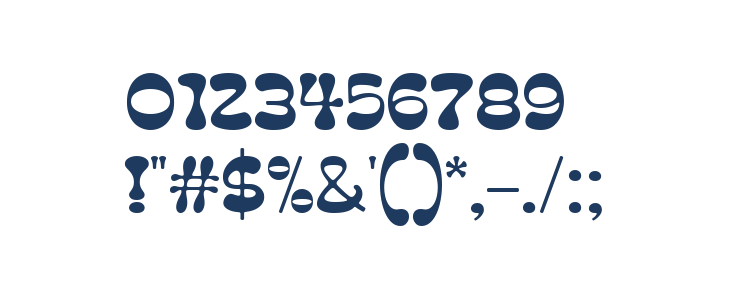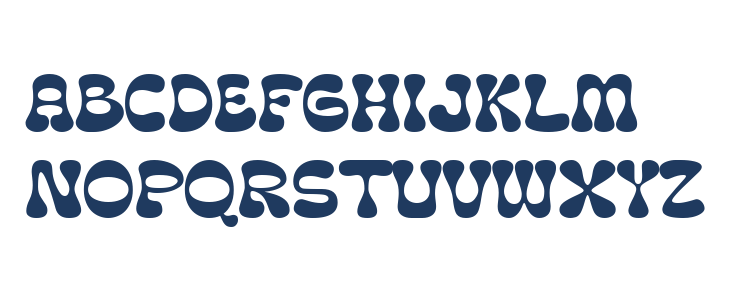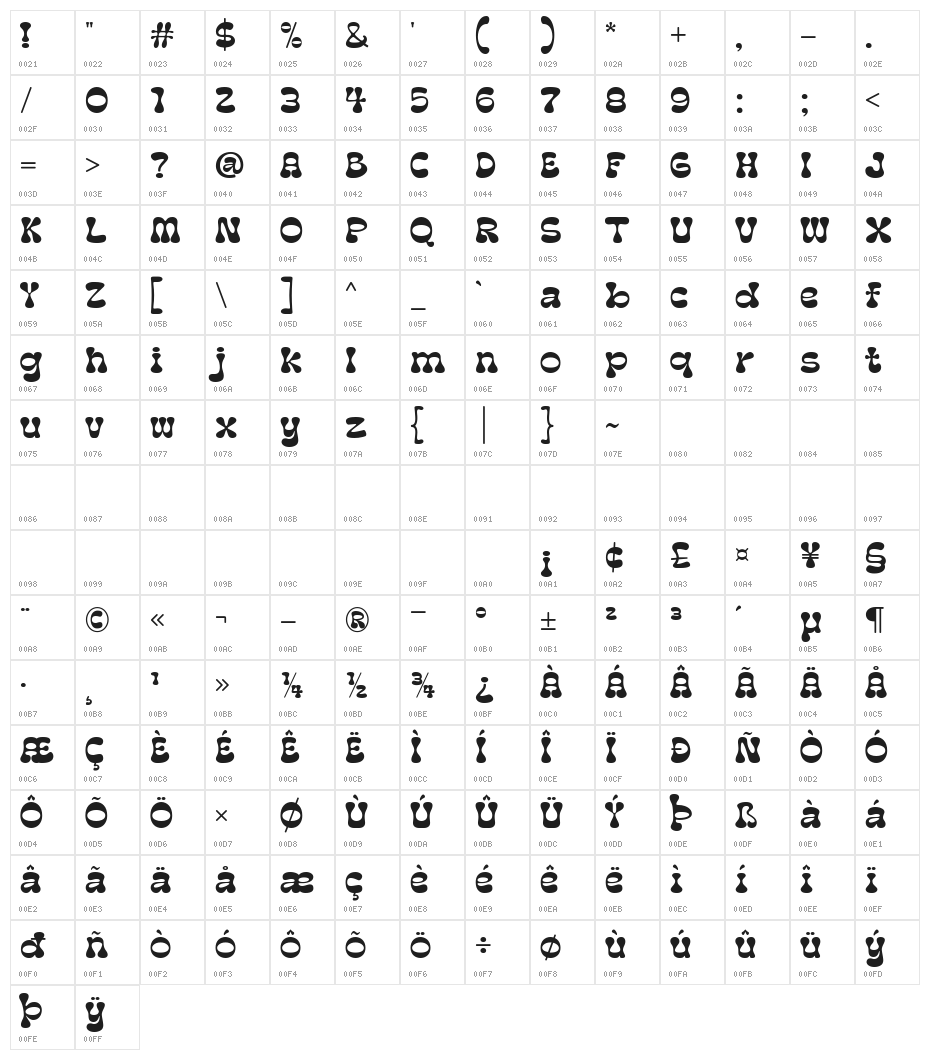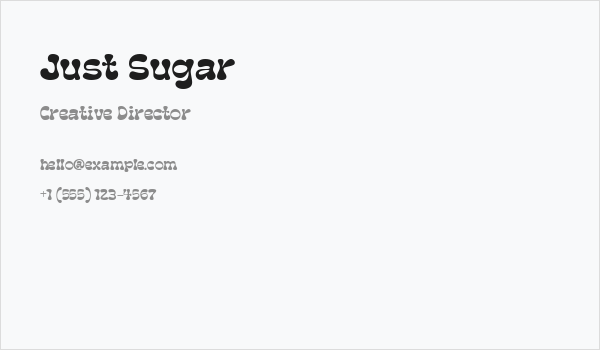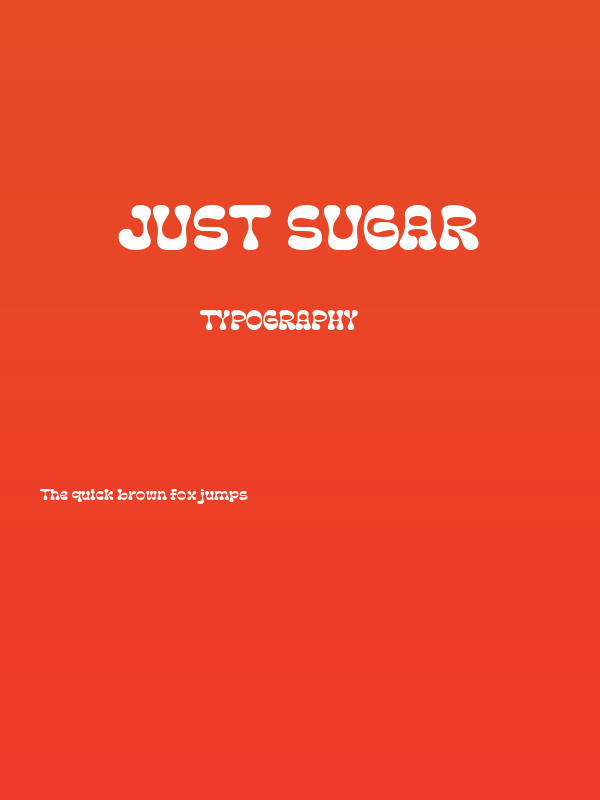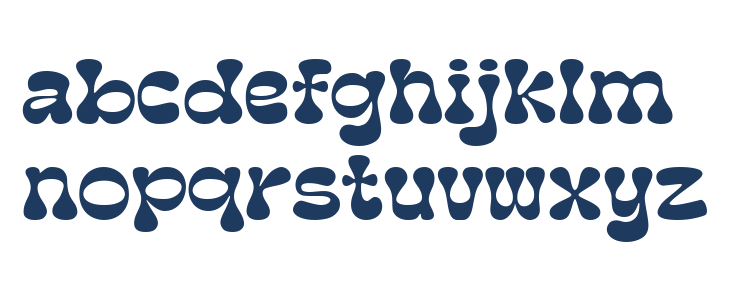
Just Sugar Font
Just Sugar Description
A playful, rounded display typeface with exaggerated bulbous terminals and a bubbly, organic appearance. The characters are bold and have a high x-height, with consistent stroke thickness and minimal contrast. The overall impression is whimsical and eye-catching.
| Overall Style | Decorative, Playful, Modern |
| Use Case | Headlines, Posters, Logos, Packaging |
| Proposed Projects | ChildrenΓ’β¬β’s books, party invitations, posters, branding for sweets or playful products, event flyers. |